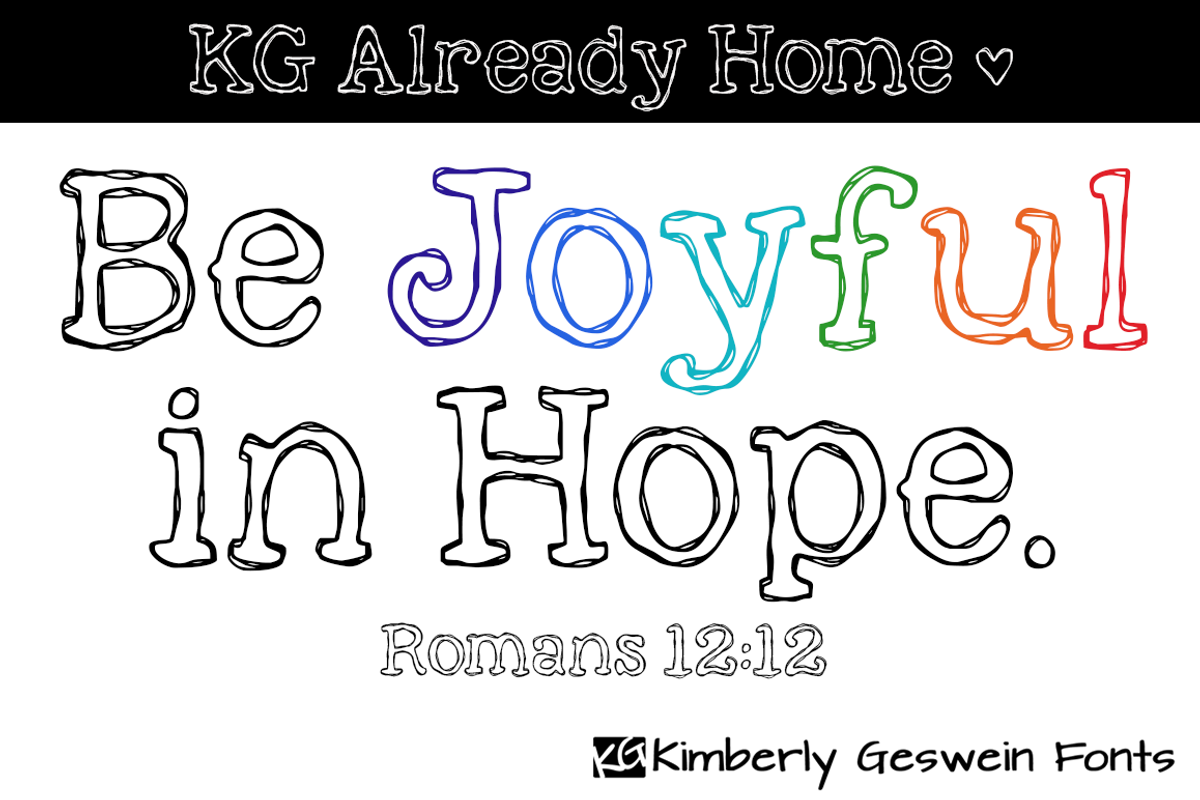
KG Already Home Font Free Download is a warm, casual handwritten typeface that feels like comfort on the page. With its soft curves, relaxed rhythm, and friendly vibe, this font is perfect for classroom resources, personal notes, quotes, blog graphics, home decor projects, and branding that needs a human touch.
Designed to look like real handwriting, KG Already Home adds personality and authenticity to any design. Whether you're a teacher creating printable materials or a creative working on heartfelt content, this font brings familiarity and approachability.
Its readability and gentle style make it ideal for both print and digital use.